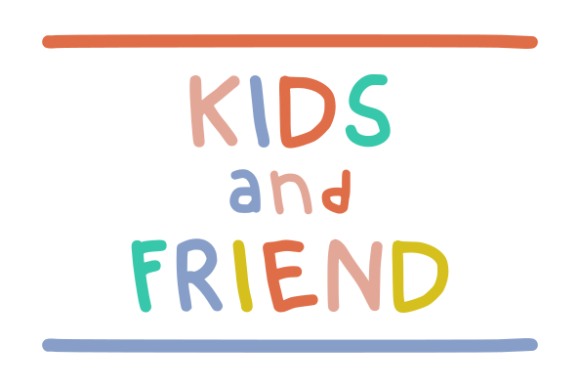
For those designers looking to inject a bit of fun into their designs, look no further than the Kids and Friend Font. This delightful typeface is perfect for adding a playful touch to all your designs, from children’s book illustrations to social media graphics.
With its unique charm, the Kids and Friend Font is a valuable addition to any designer’s toolkit. Whether you’re working on a project for kids or just want to add some whimsy to your design, this font is sure to bring a smile to your face and a spark to your creativity.
Kids and Friends Font Key Features
- Unique Characteristics: The Kids and Friends font features a playful, child-friendly design with rounded edges and simple shapes, making it perfect for creating a welcoming and approachable atmosphere.
Review of “Kids and Friend Font”
At first glance, “Kids and Friend Font” seems like a cheerful and playful typeface. The font is designed for children, and it’s easy to see why – it’s bold, colorful, and features cute illustrations of kids and animals. ✨ The use of different colors and graphics adds a lot of personality to the font, making it perfect for children’s books, educational materials, and other kid-friendly content.
Here are some of the font’s strengths:
- Highly customizable: The font can be adjusted to fit different design styles and color schemes.
- Fun and engaging: The use of illustrations and colors makes the font perfect for grabbing the attention of children.
- Easy to read: Despite its playful nature, the font is still easy to read and understand.
- Overly simplistic: The font’s simplicity can make it feel a bit juvenile or unprofessional in certain contexts.
- Limited flexibility: While the font can be customized, it may not be suitable for all design styles or formats.
Overall, I think “Kids and Friend Font” is a great choice for kid-friendly content, but it may not be the best fit for more serious or professional projects. With a little creativity and customization, however, it can be a fun and effective tool for designers.
Use the Kids and Friend Font for titles, headings, and short paragraphs to add a playful touch to your designs.
Combine the font with bright colors and fun graphics to create a visually appealing design.
Experiment with different font sizes and styles to create a unique look.
Children’s books, educational materials, and kids’ party invitations.
Designs for schools, daycare centers, and children’s clothing.
Fun and playful marketing materials, such as social media posts and ads.